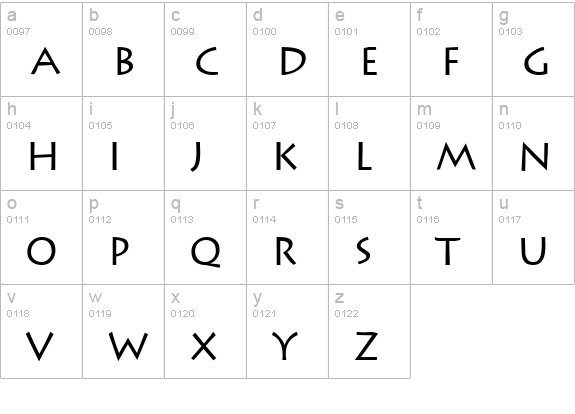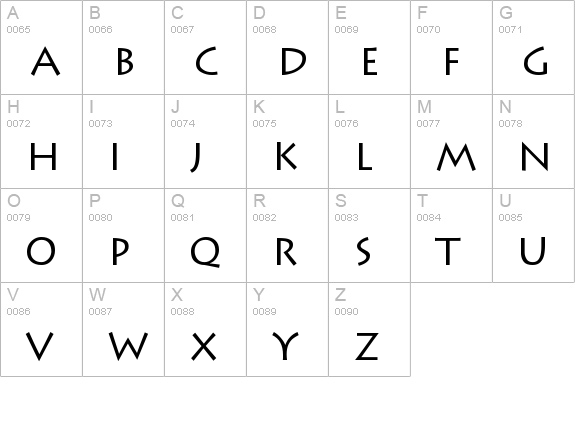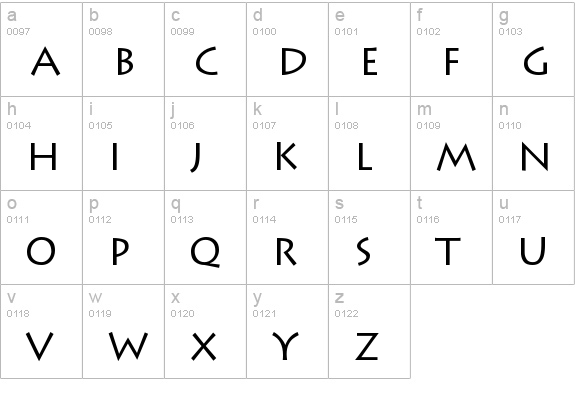
Gomorrah Font Details
Introducing Gomorrah font - a striking and elegant typeface that exudes sophistication and style. With its sleek lines and modern design, Gomorrah is perfect for adding a touch of luxury to any project. Whether you're working on branding, editorial design, or digital content, this versatile font is sure to make a statement. And the best part? Gomorrah font is available for free download at FontsMarket.com. Simply head over to the website and add this stunning font to your collection without any cost. Don't miss out on the opportunity to elevate your designs with Gomorrah font today!